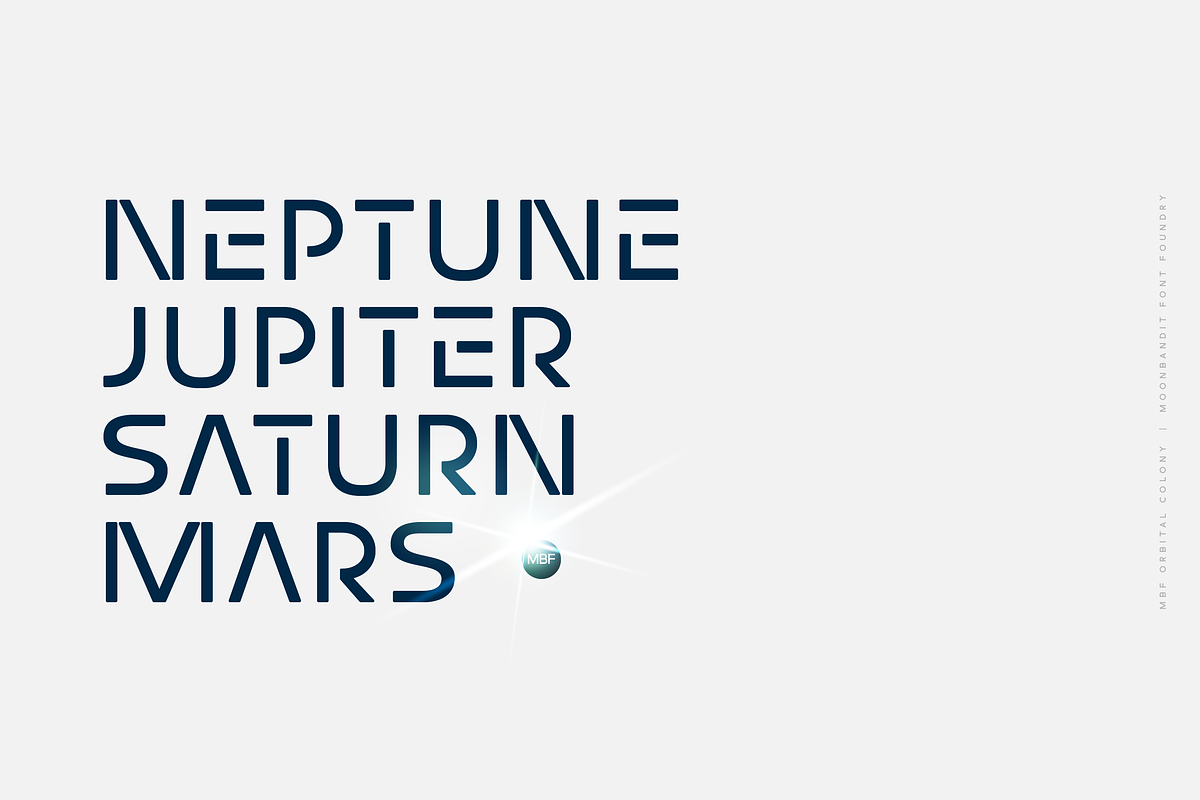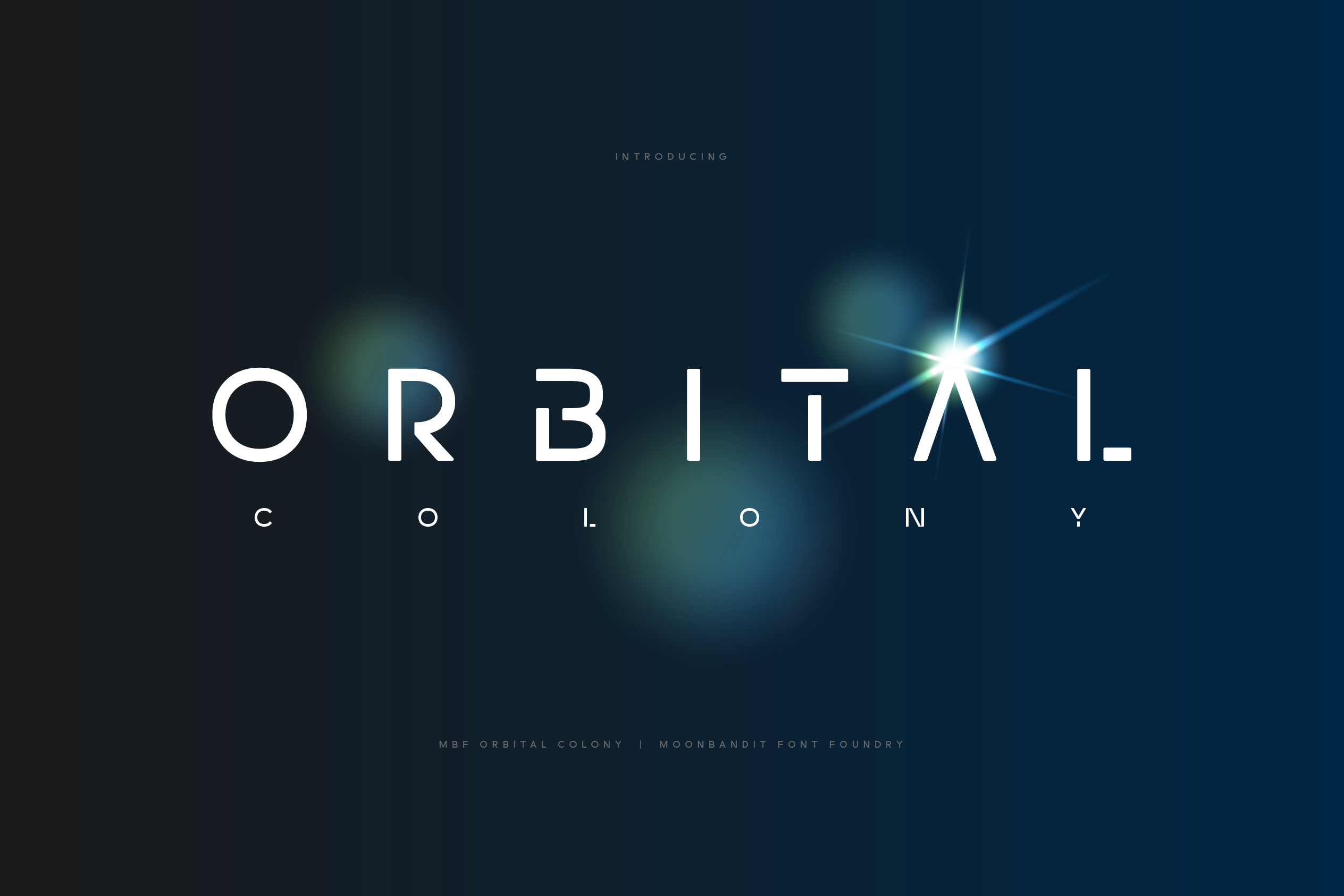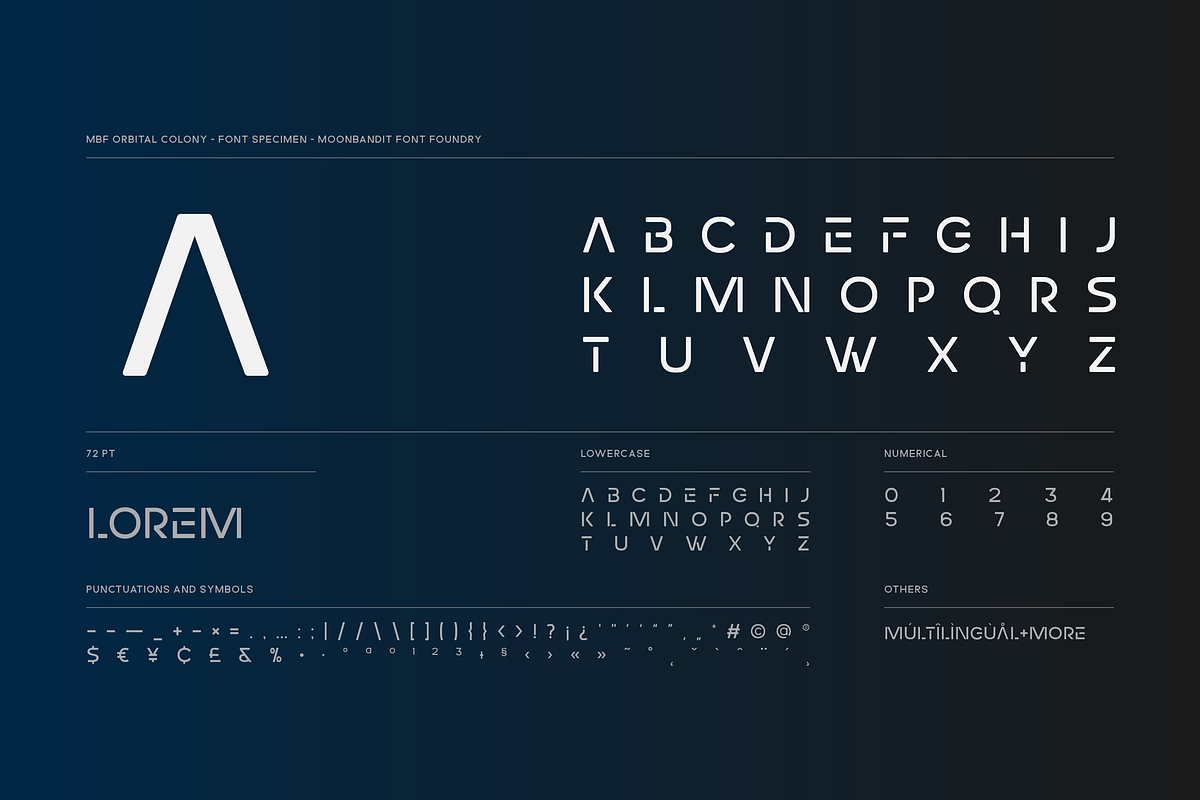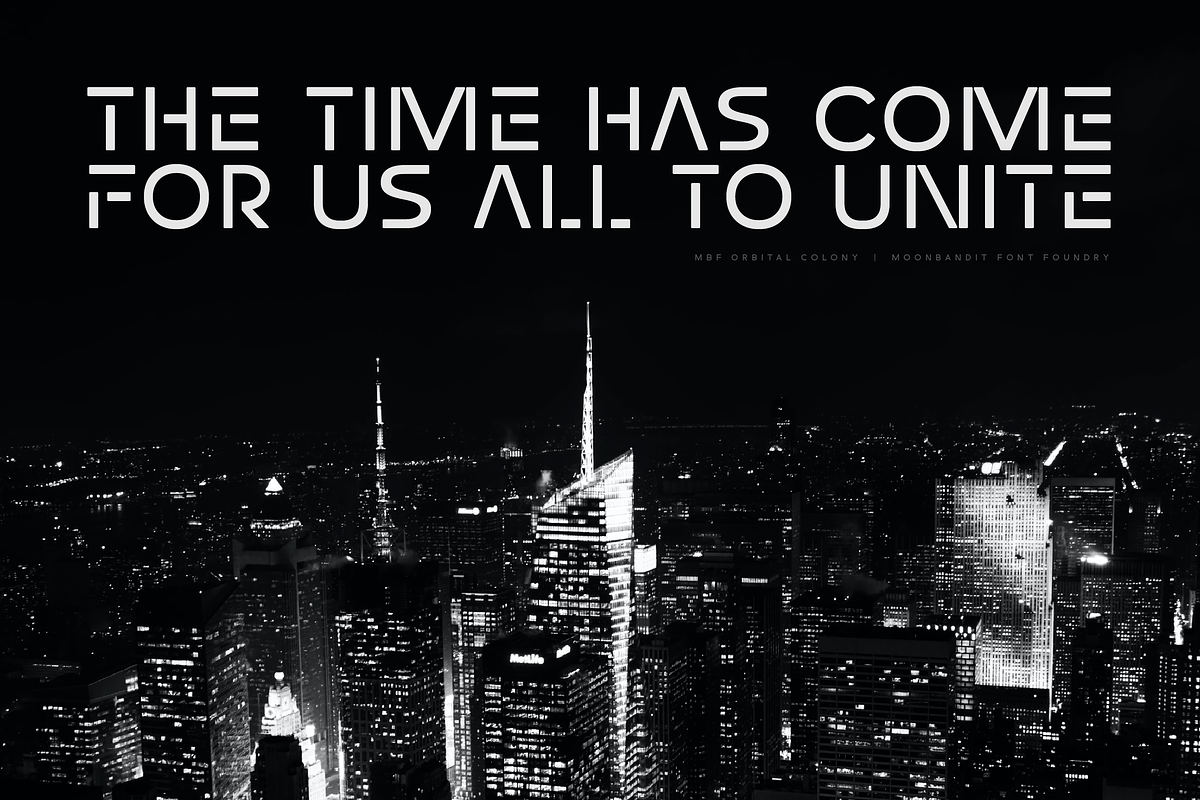
MBF Orbital Colony - Futuristic font
Orbital Colony is a modern futuristic scifi font. This typeface design is perfect for a clean and minimalist design theme. perfect usage includes logo, poster, display, headline, t-shirt design and many more.